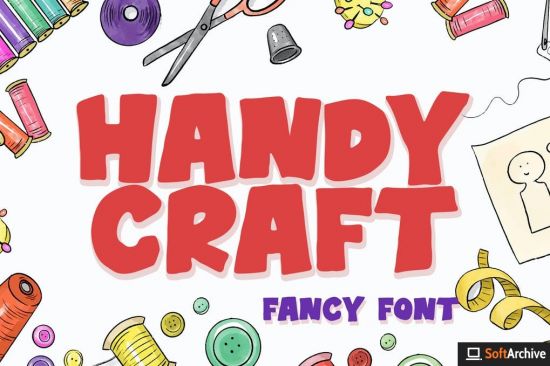
DesignOptimal - Handy Craft Font
Handy Craft is handwritten font, so bold and fancy. Handy Craft font is perfect for birthday party, cartoon, logo, food, adventure, or animal design. Just combine the uppercase with the lowercase to get better composition